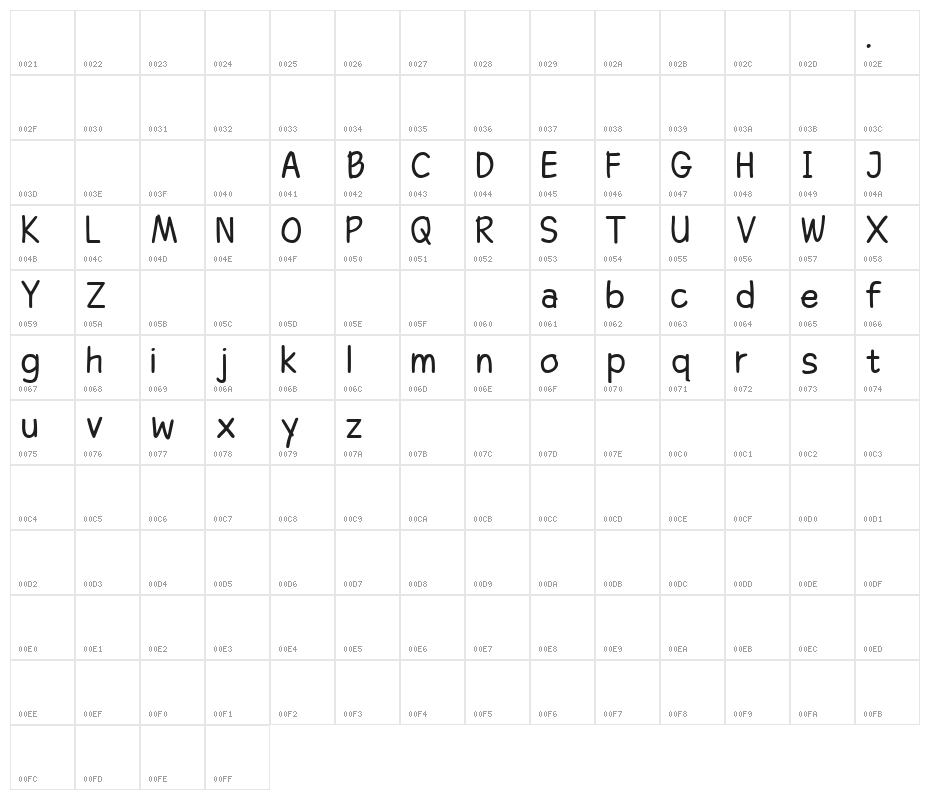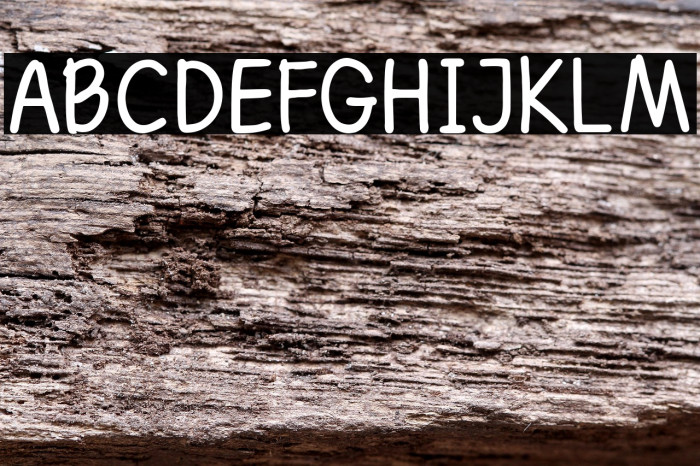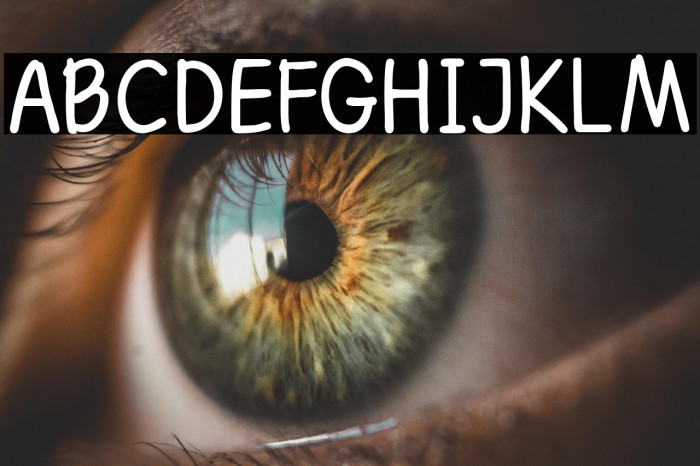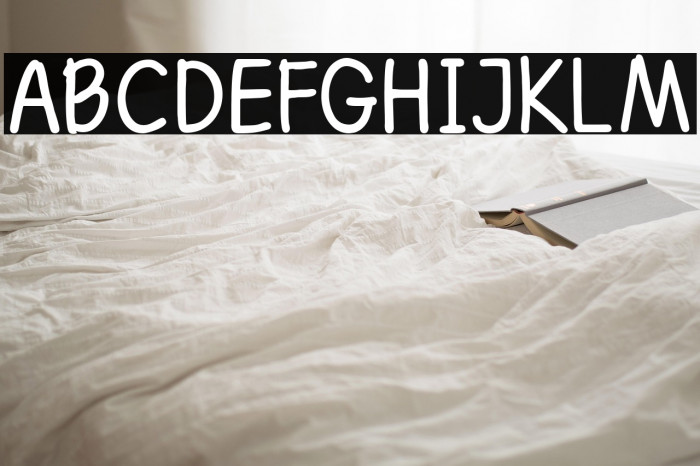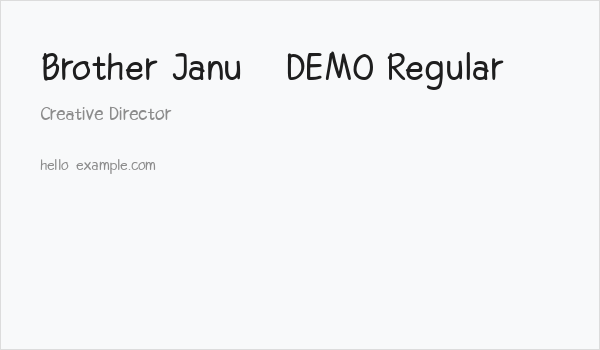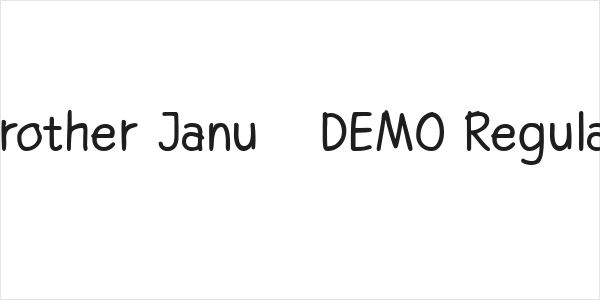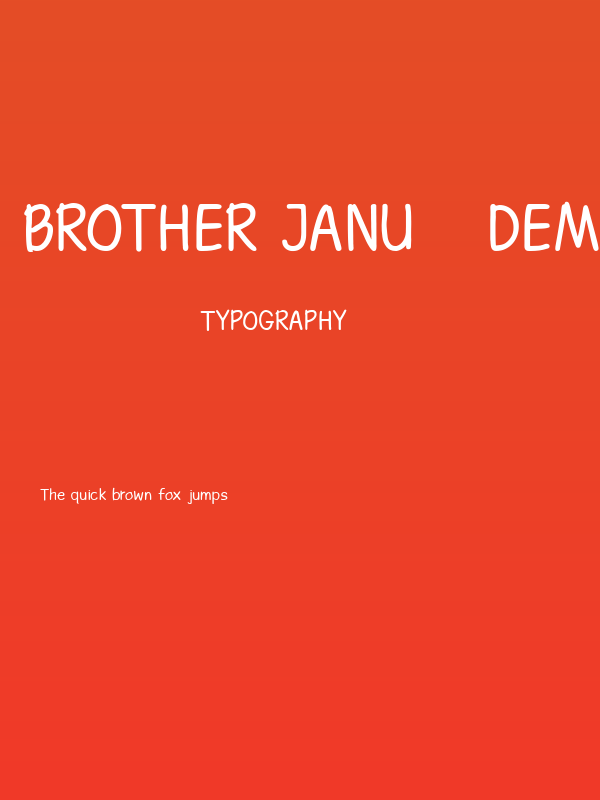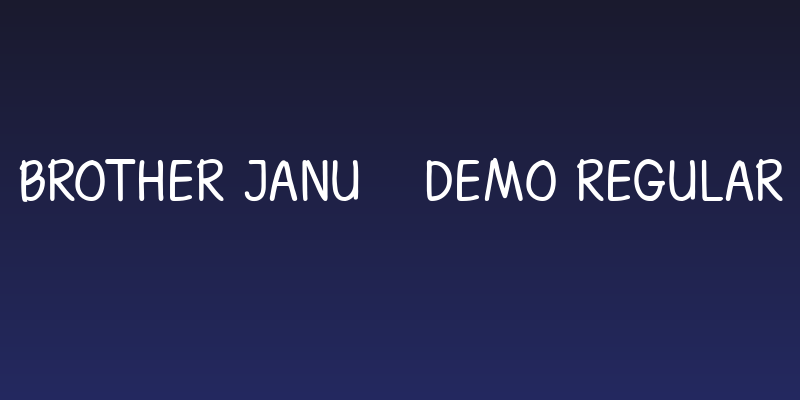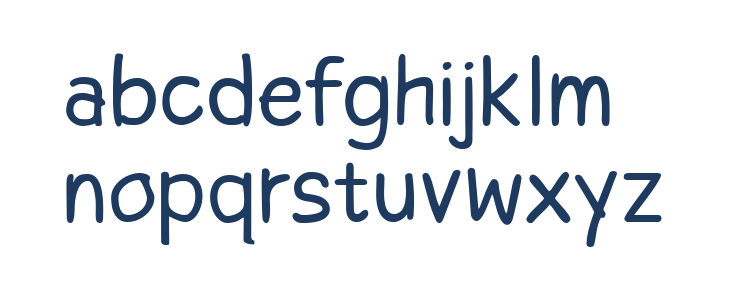
Brother Janu - DEMO Regular Font
Brother Janu - DEMO Regular Description
This font features a playful and casual handwritten style, characterized by its rounded edges and slightly irregular letterforms. The uppercase and lowercase letters maintain a consistent flow, giving it a friendly and approachable appearance. The strokes are uniform in thickness, contributing to a clean and legible look. The font's design is reminiscent of casual handwriting, making it suitable for projects that require a personal touch. Its simplicity and clarity ensure readability across various sizes, making it versatile for both print and digital media.
| Use Case | Headlines, Informal text, Branding |
| Proposed Projects | Ideal for greeting cards, children's books, casual branding, and social media graphics. |